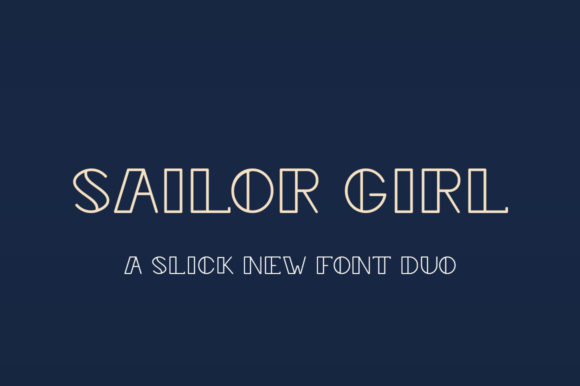
Sailor Girl Font
Introducing Sailor Girl Font, the perfect blend of modern sophistication and nautical charm. Created by the talented team at Salt and Pepper Fonts, this sans serif beauty is designed to captivate and inspire. With its sleek lines and timeless appeal, Sailor Girl is the ultimate choice for anyone seeking a font that exudes elegance.
Drawing inspiration from the vastness of the ocean, Sailor Girl Font combines simplicity and style in a way that is truly captivating. Its clean and crisp design makes it versatile and suitable for a wide range of projects, whether you're designing a logo, creating stunning graphics, or crafting a visually appealing website.
Imagine the possibilities that await you with Sailor Girl Font. Its bold and captivating presence will effortlessly elevate your designs, making them stand out from the crowd. Whether you're aiming for a professional and polished look or a playful and whimsical vibe, this font has got you covered.
What sets Sailor Girl Font apart is its ability to evoke emotion. Its nautical theme carries with it a sense of adventure, freedom, and the thrill of the open sea. With each stroke, this font tells a story and invites your audience to embark on a visual journey. From branding to social media posts, Sailor Girl Font will infuse your projects with a sense of wonder and curiosity.